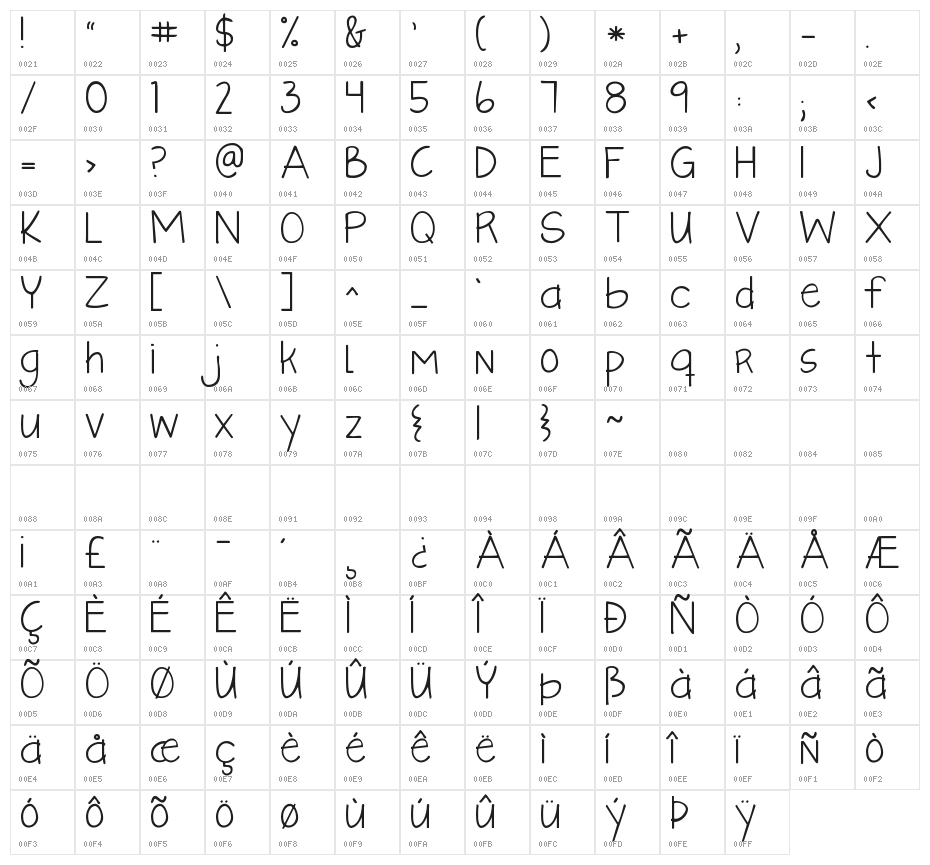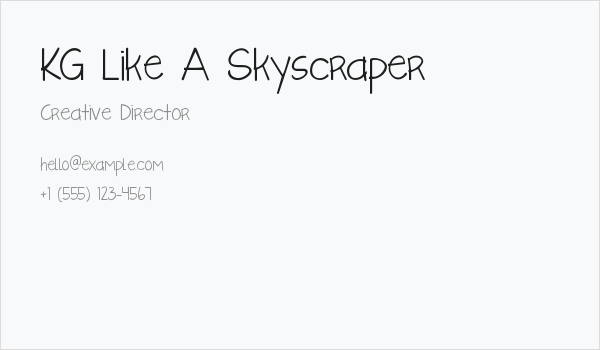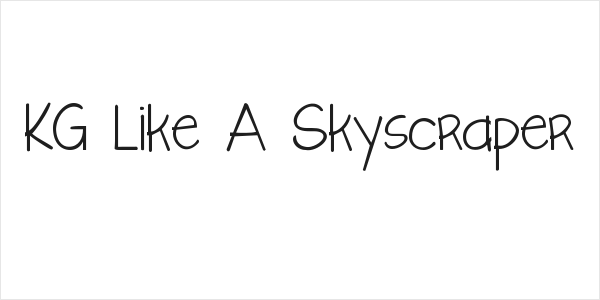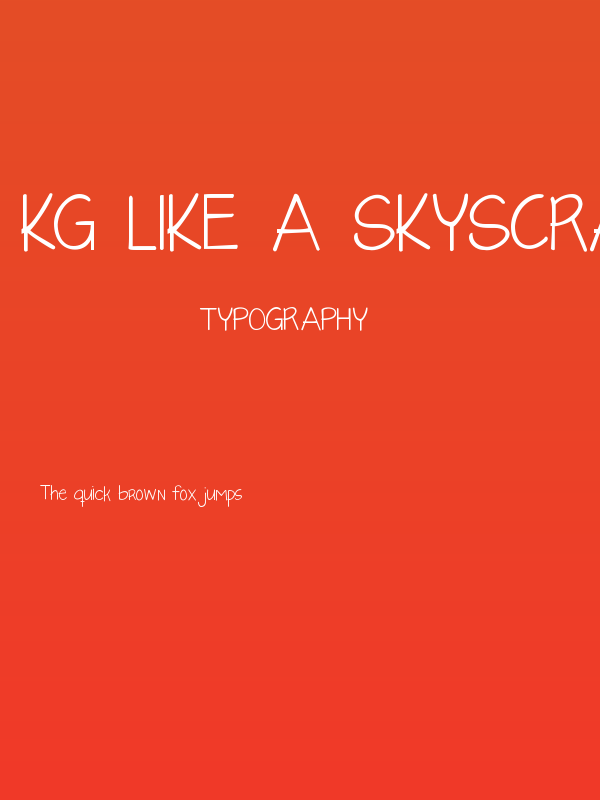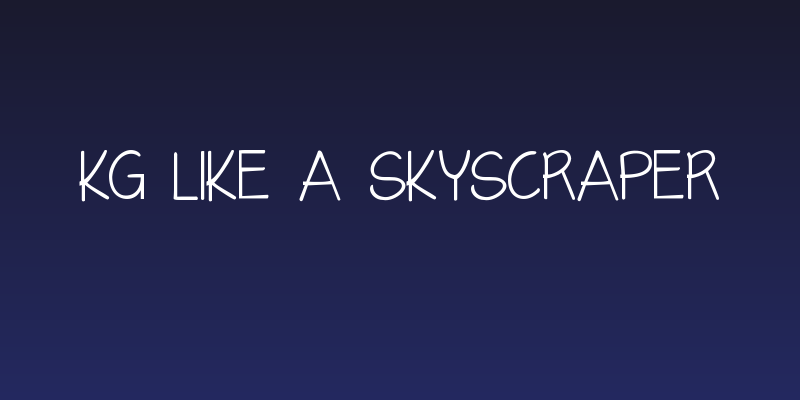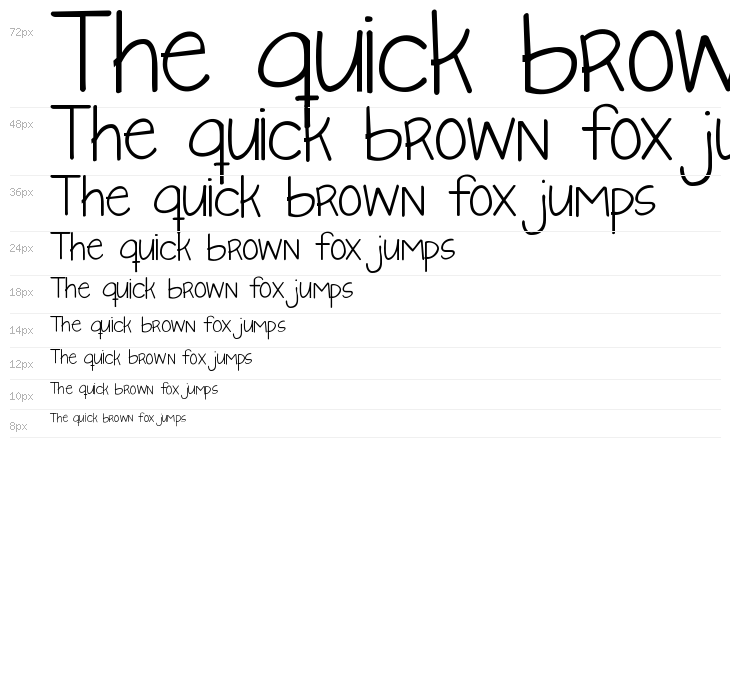
KG Like A Skyscraper Font
KG Like A Skyscraper Description
This font features a playful, handwritten style with a tall and narrow structure. The characters are slightly irregular, giving it a whimsical and casual feel. The strokes are consistent in thickness, contributing to a clean and approachable appearance. The uppercase letters are distinct with a slight slant, while the lowercase letters maintain a uniform height, enhancing readability. Numbers and special characters are designed to match the overall aesthetic, making it versatile for various uses. The font's unique charm lies in its ability to convey a sense of friendliness and informality.
| Use Case | Headlines, Informal text, Branding |
| Proposed Projects | Ideal for children's books, greeting cards, informal invitations, and playful branding projects. |